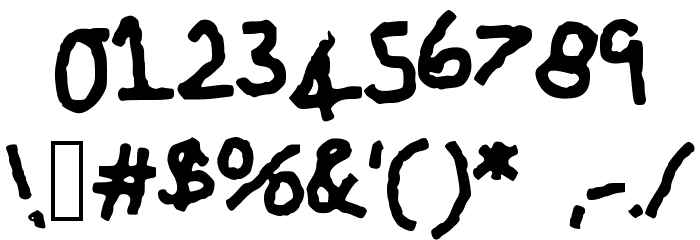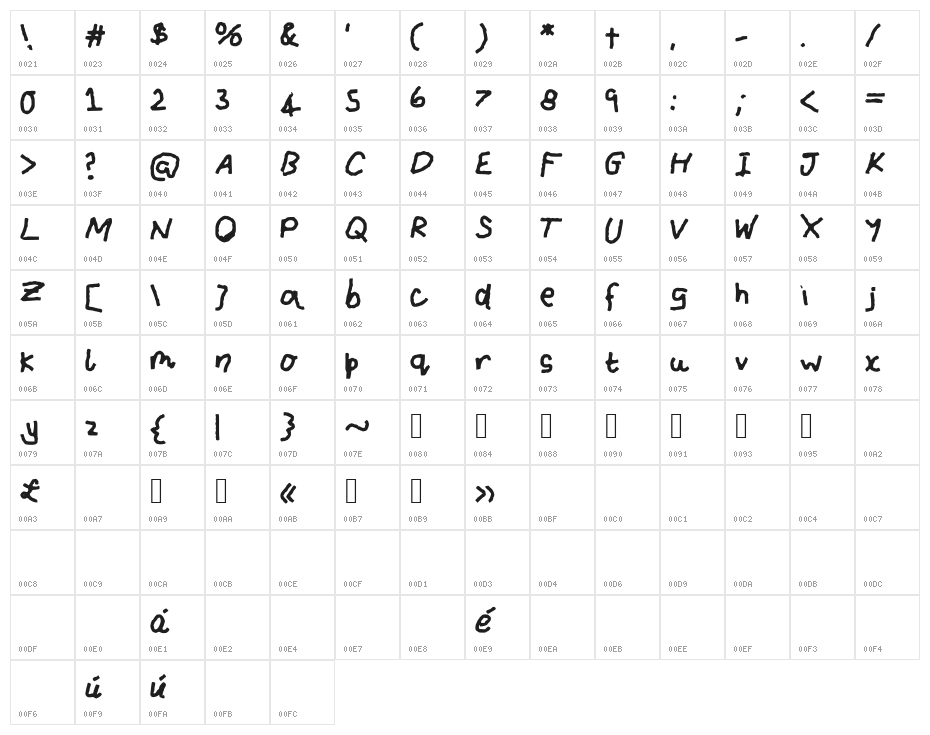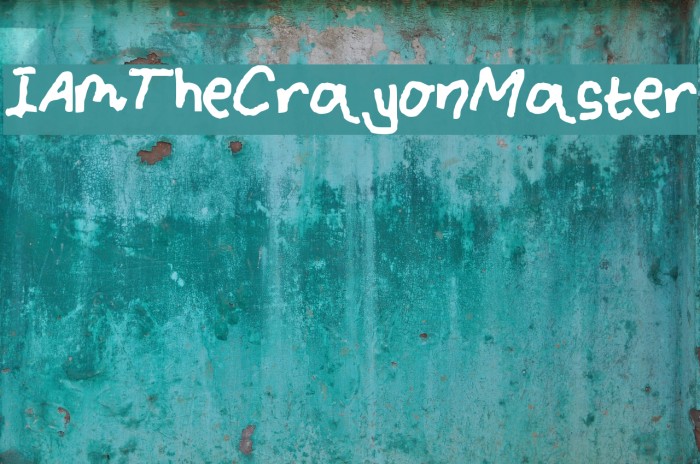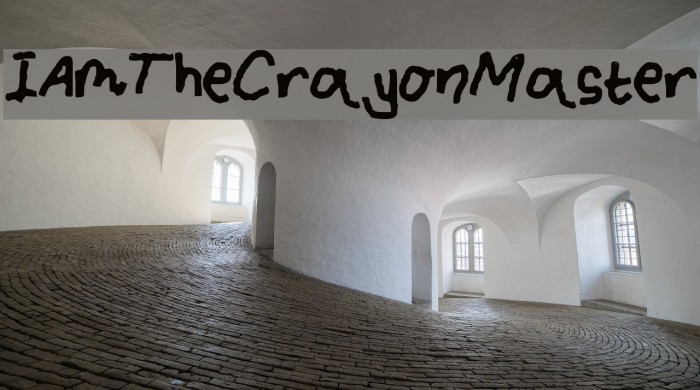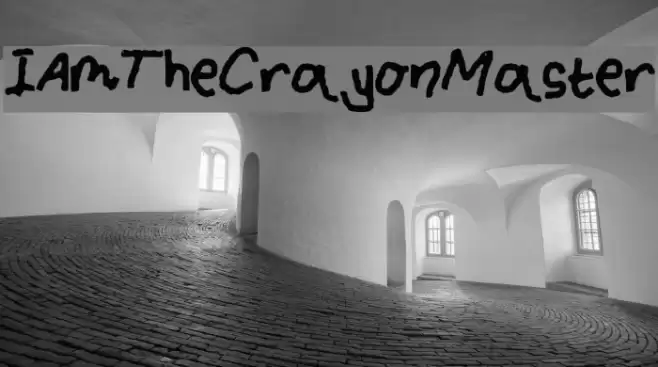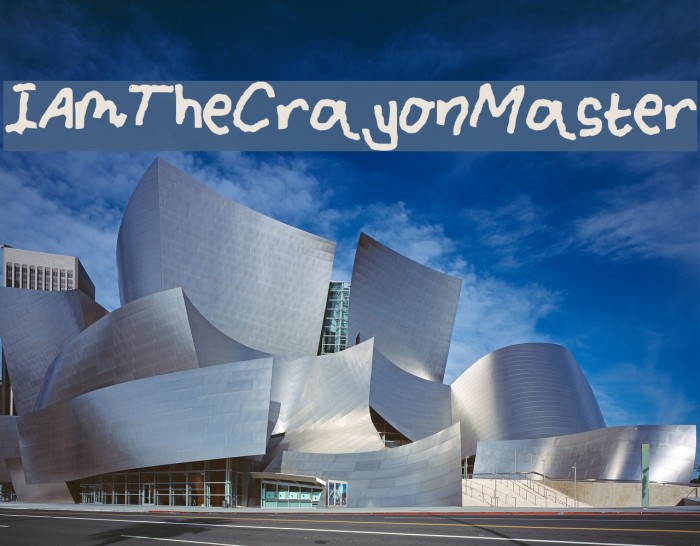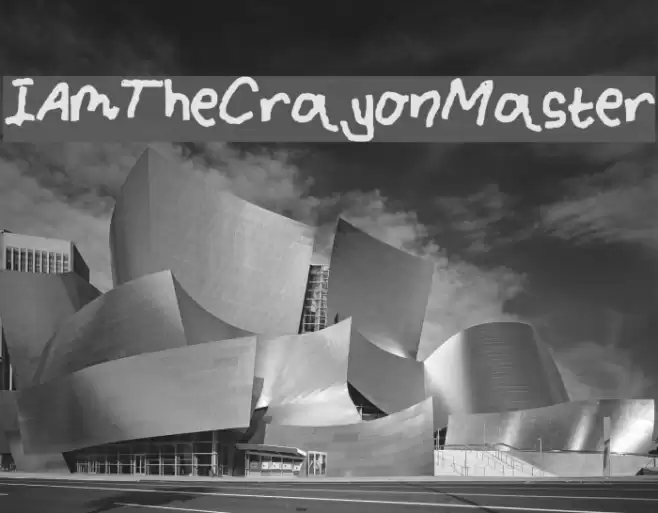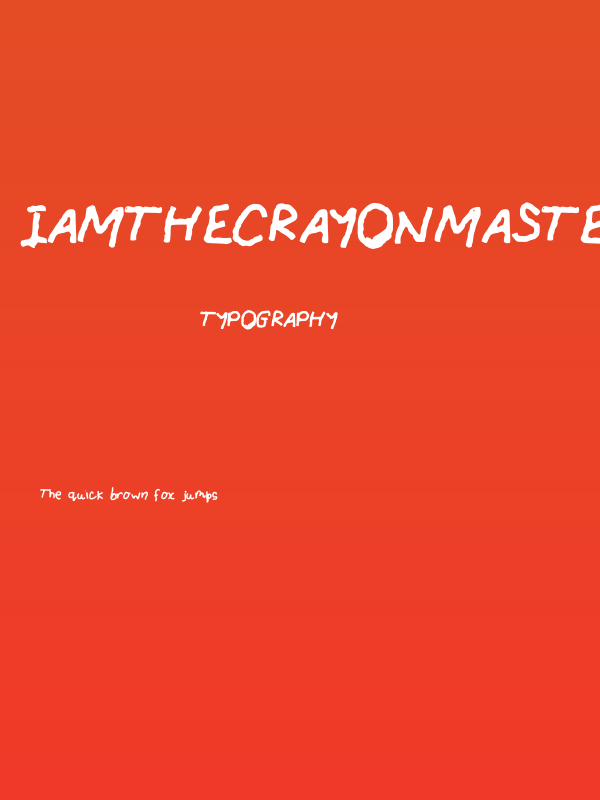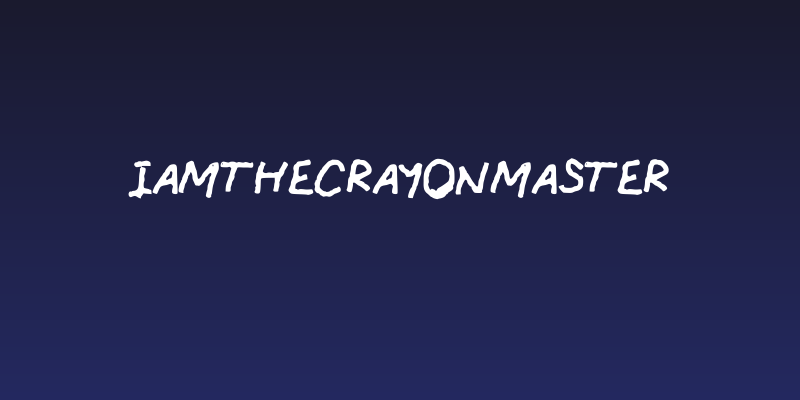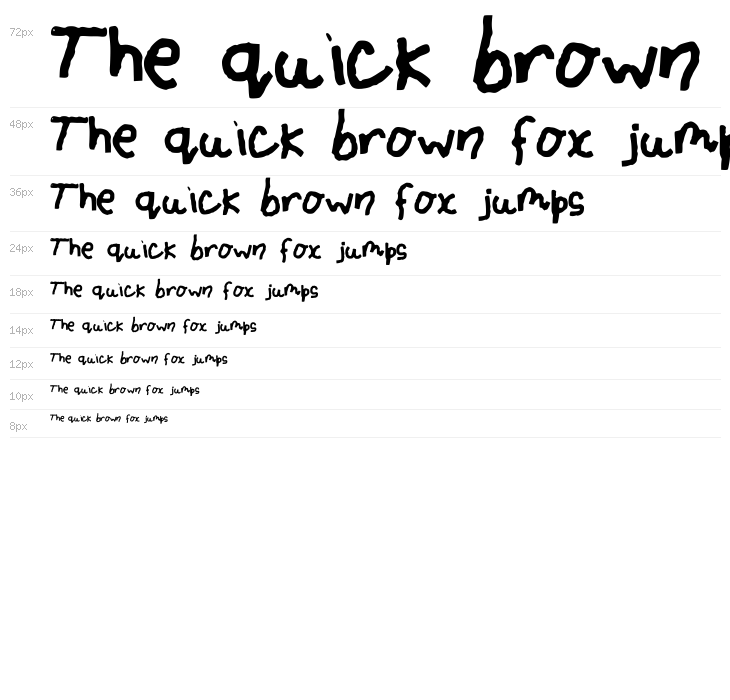
This font exudes a playful and informal style, reminiscent of handwriting with a crayon or marker. The characters are bold and slightly irregular, giving them a whimsical and childlike appearance. The strokes are thick and uneven, adding to the casual and approachable feel. This font is highly legible, with each letter distinctly formed, yet it maintains a sense of spontaneity and creativity. The numbers and special characters follow the same playful design, ensuring consistency throughout. Overall, this font is perfect for projects that aim to convey a sense of fun, creativity, and informality.
Overall StylePlayful
Use CaseHeadlines, Logos, Informal Text
Proposed ProjectsIdeal for children's books, playful branding, casual invitations, and educational materials.